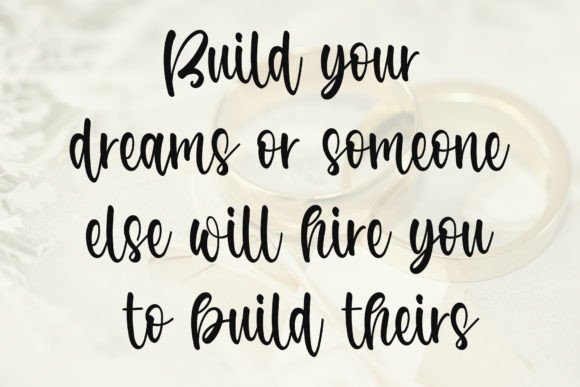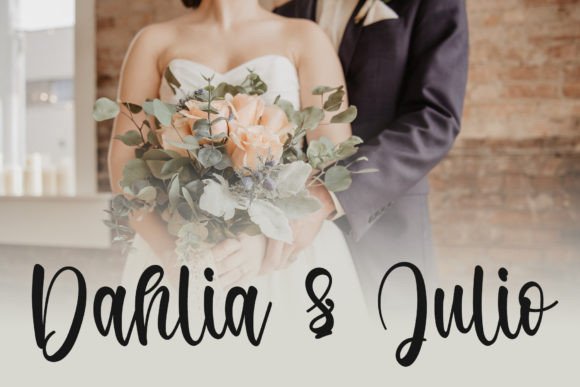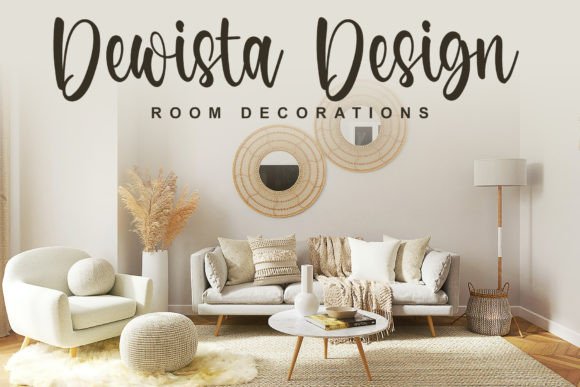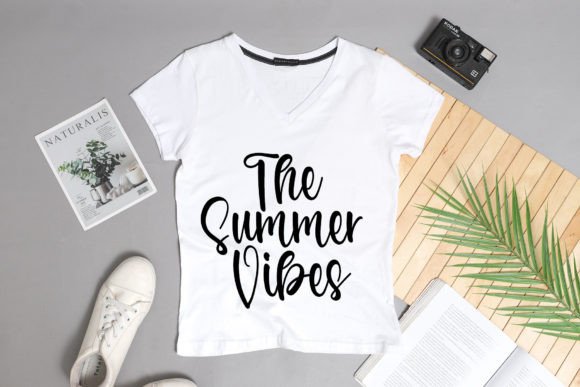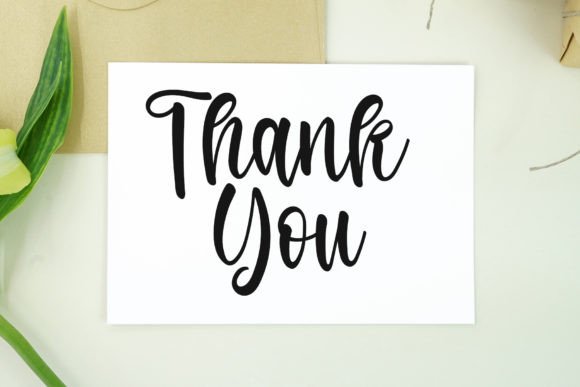
Bristle Font: Add a Touch of Holiday Magic to Your Christmas Creations
Are you looking for a font that can add a dash of festive fun to your Christmas cards, decorations, and other holiday projects? Look no further than Bristle Font, a playful and enchanting typeface that’s perfect for spreading joy and cheer during the holiday season. In this article, we’ll take a closer look at Bristle Font, its features, and how you can use it to create amazing holiday crafts and designs.
What is Bristle Font?
Bristle Font is a festive and whimsical typeface that’s specifically designed to add a touch of holiday magic to your creations. This font is adorned with enchanting swashes that will make your Christmas cards, decorations, and other projects stand out. Whether you’re a designer, crafter, or DIY enthusiast, Bristle Font is the perfect addition to your holiday toolkit.
Key Features of Bristle Font
So, what makes Bristle Font so special? Here are some of its key features:
- Festive and Playful Design: Bristle Font is designed to be fun and festive, making it perfect for holiday projects.
- Enchanting Swashes: The font features beautiful swashes that add a touch of magic to your creations.
How to Use Bristle Font
Using Bristle Font is easy, even if you’re not a professional designer. Here are some ideas for using this amazing font:
- Christmas Cards: Add a personal touch to your holiday cards with Bristle Font.
- Holiday Decorations: Use Bristle Font to create festive decorations, such as garlands, banners, and signs.
- Crafting Projects: Bristle Font is perfect for crafters who love to make handmade gifts, such as ornaments, gift tags, and more.
- Digital Designs: Use Bristle Font to create amazing digital designs, such as holiday-themed social media graphics and blog posts.
Benefits of Using Bristle Font
So, why should you choose Bristle Font for your holiday projects? Here are some benefits of using this amazing font:
- Save Time: With Bristle Font, you can create amazing holiday designs in no time.
- Easy to Use: The font is easy to use, even for those who are new to design.
- High-Quality Design: Bristle Font is designed to be high-quality and visually appealing.
- Unique and Festive: The font is perfect for adding a unique and festive touch to your holiday projects.
Tips and Tricks for Using Bristle Font
Here are some tips and tricks for getting the most out of Bristle Font:
- Experiment with Different Sizes and Colors: Try out different sizes and colors to see what works best for your project.
- Use the Swashes to Add Emphasis: The swashes in Bristle Font are perfect for adding emphasis to your text.
- Combine with Other Fonts: Try combining Bristle Font with other fonts to create a unique and interesting look.
Bristle Font is a fantastic addition to any designer’s or crafter’s toolkit, especially during the holiday season. With its festive and playful design, enchanting swashes, and PUA encoding, this font is perfect for adding a touch of holiday magic to your Christmas cards, decorations, and other projects. Whether you’re a seasoned designer or a DIY enthusiast, Bristle Font is sure to bring joy and cheer to your holiday creations.